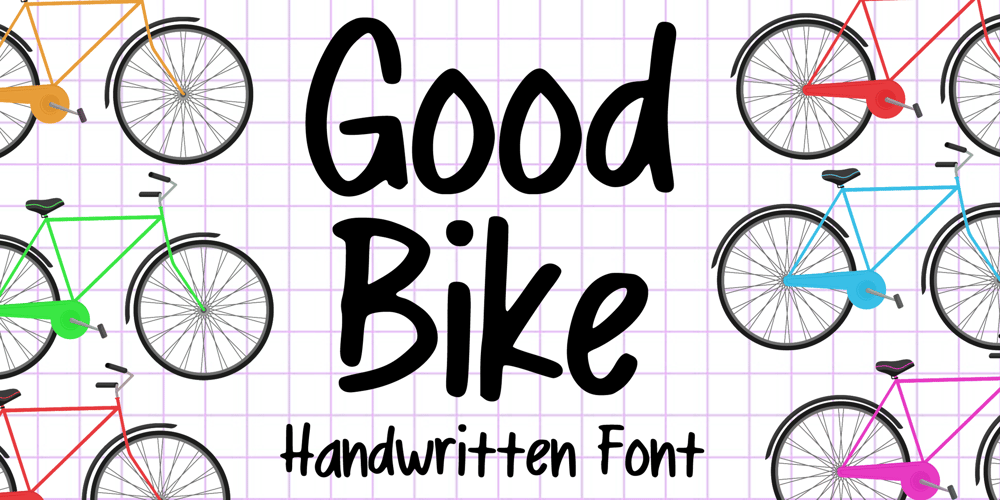
Good Bike Font Family was designed by Gabriel Valentinus and published by Mvmet. Good Bike contains 1 styles and family package options. Good Bike is a versatile handwritten comic font, inspired by 90s street graffiti, comic and cartoons. You can use it for anything ranging from t-shirts and clothing, for your book designs, street art needs, greeting cards, stickers, posters, banners, or anything that needs a bold and fun touch. Try it to create fabulous designs and feel the fun and cheering vibes with it!